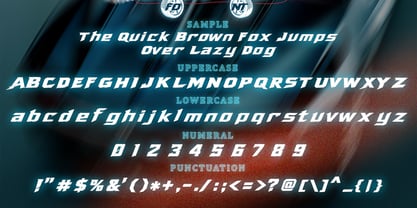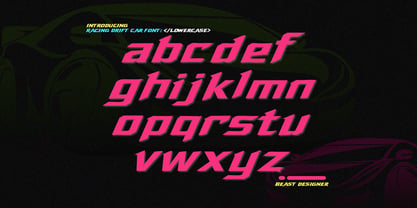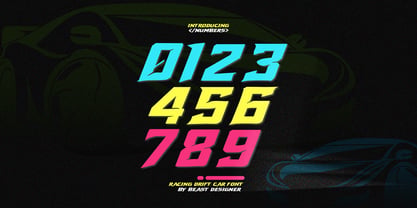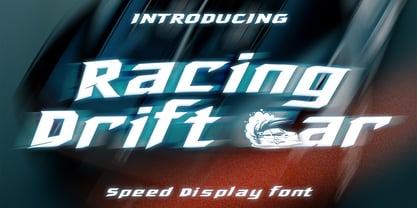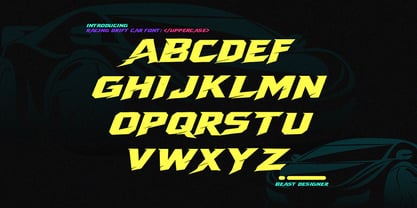
Racing Drift Car
La familia tipográfica Racing Drift Car fue diseñada por Mohammed Lamjidi y publicada por Beast Designer. Racing Drift Car contiene 1 estilos. Más información sobre esta familia
Racing Drift Car Font is a bold, fast, and sporty display font inspired by racing culture, drift cars, tire marks, street speed, and motorsport energy. With its aggressive letter shapes and dynamic style, this font is perfect for designs that need a powerful automotive look.
Ideal for car logos, racing posters, YouTube thumbnails, motorsport branding, garage signs, apparel designs, stickers, decals, game titles, social media graphics, and any project related to speed, cars, drifting, or street racing.
Whether you are creating a bold racing brand, a custom car design, or an eye-catching headline, Racing Drift Car Font will bring high-speed energy and a strong sporty feel to your work.
Perfect for:
Racing logos, drift car graphics, automotive posters, garage branding, T-shirts, stickers, decals, YouTube thumbnails, esport designs, game titles, and motorsport-themed projects.